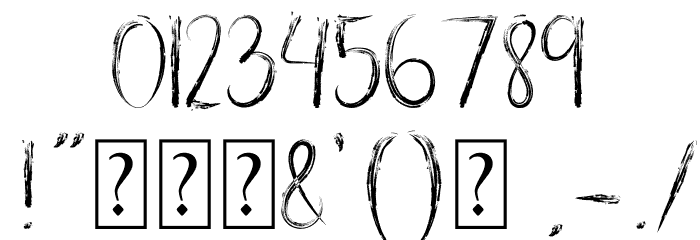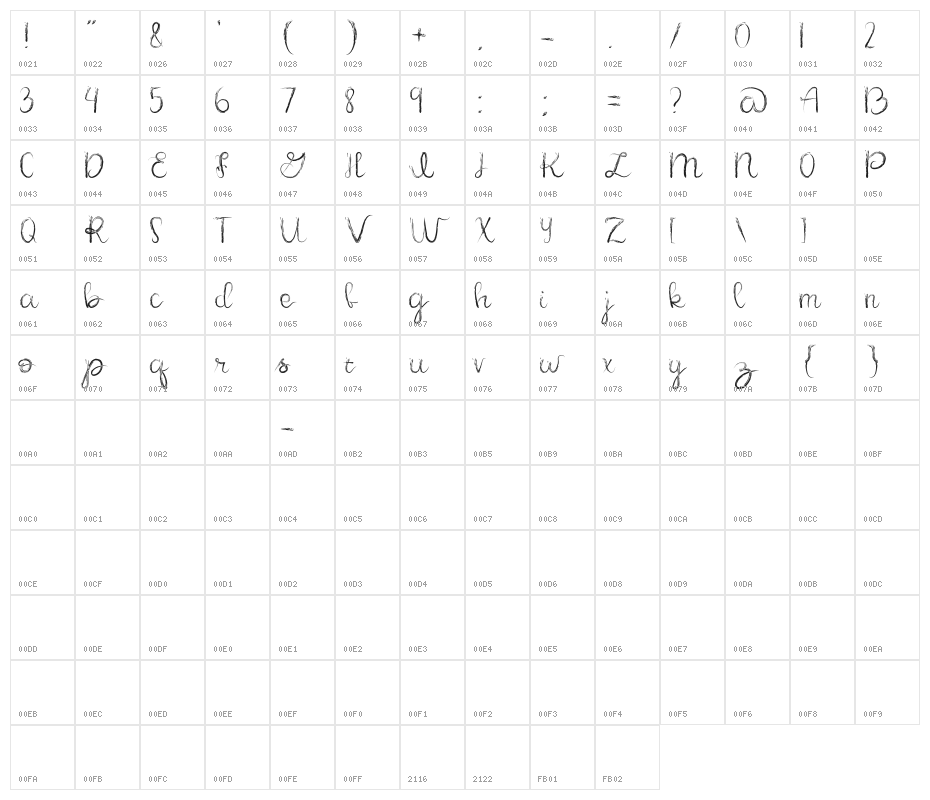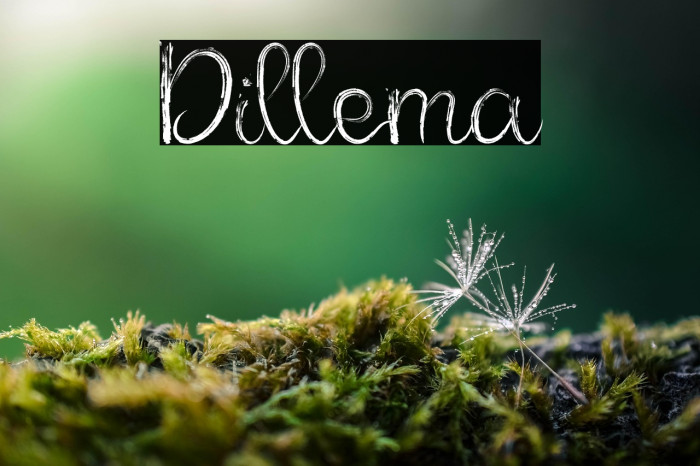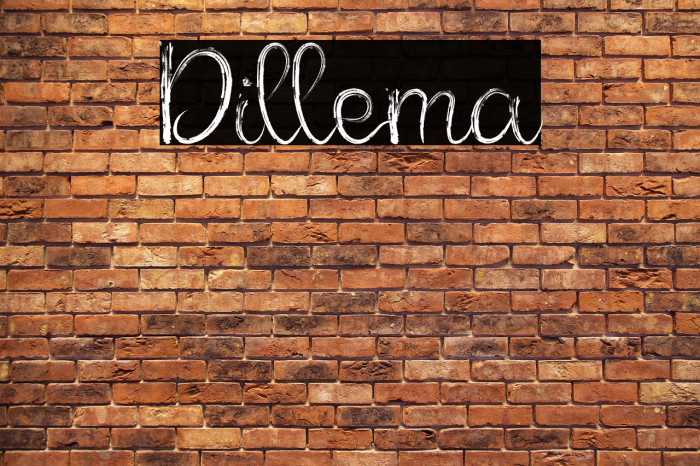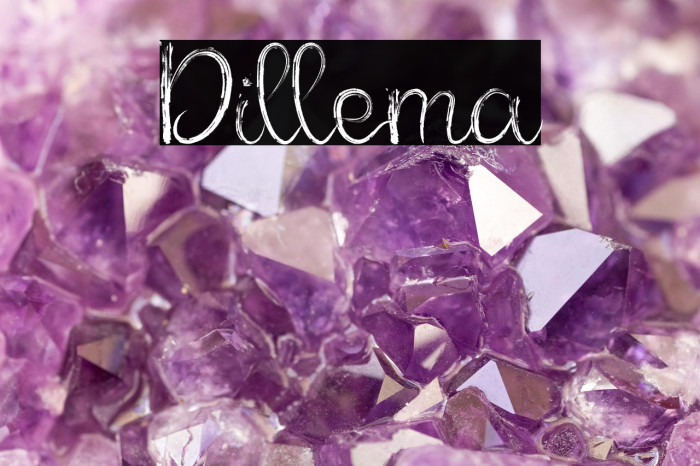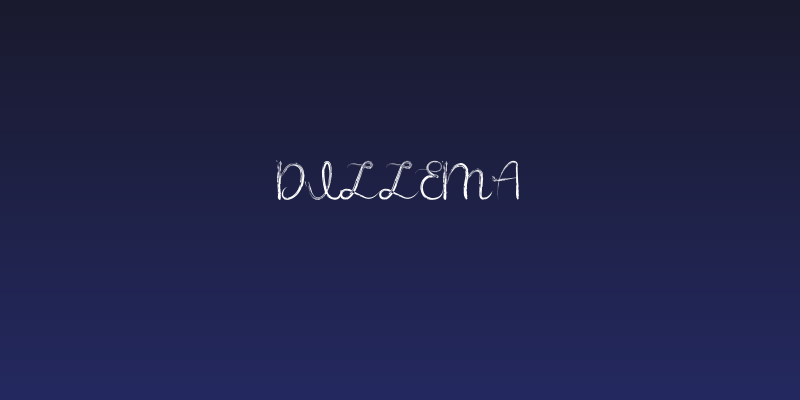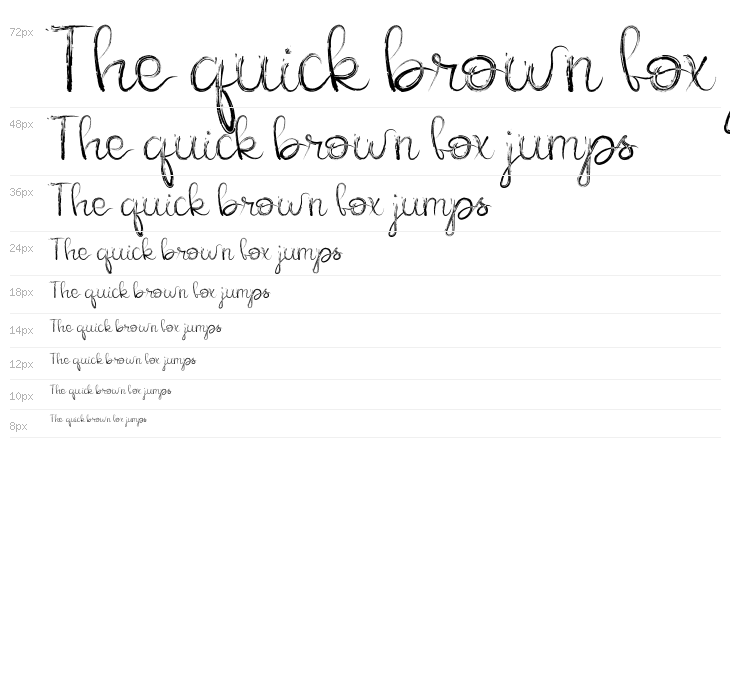
Dillema Font
Dillema Description
This font features a whimsical and artistic style, characterized by its fluid, hand-drawn appearance. The letters exhibit a playful, cursive form with varying stroke widths that create a dynamic and lively texture. The uppercase letters are bold and expressive, while the lowercase letters maintain a consistent flow, enhancing the font's overall elegance. The numbers and special characters are designed with the same artistic flair, ensuring a cohesive look across all elements. This font's unique style makes it suitable for creative projects that require a touch of personality and charm.
| Proposed Projects | Ideal for greeting cards, invitations, artistic posters, and branding that requires a personal touch. |